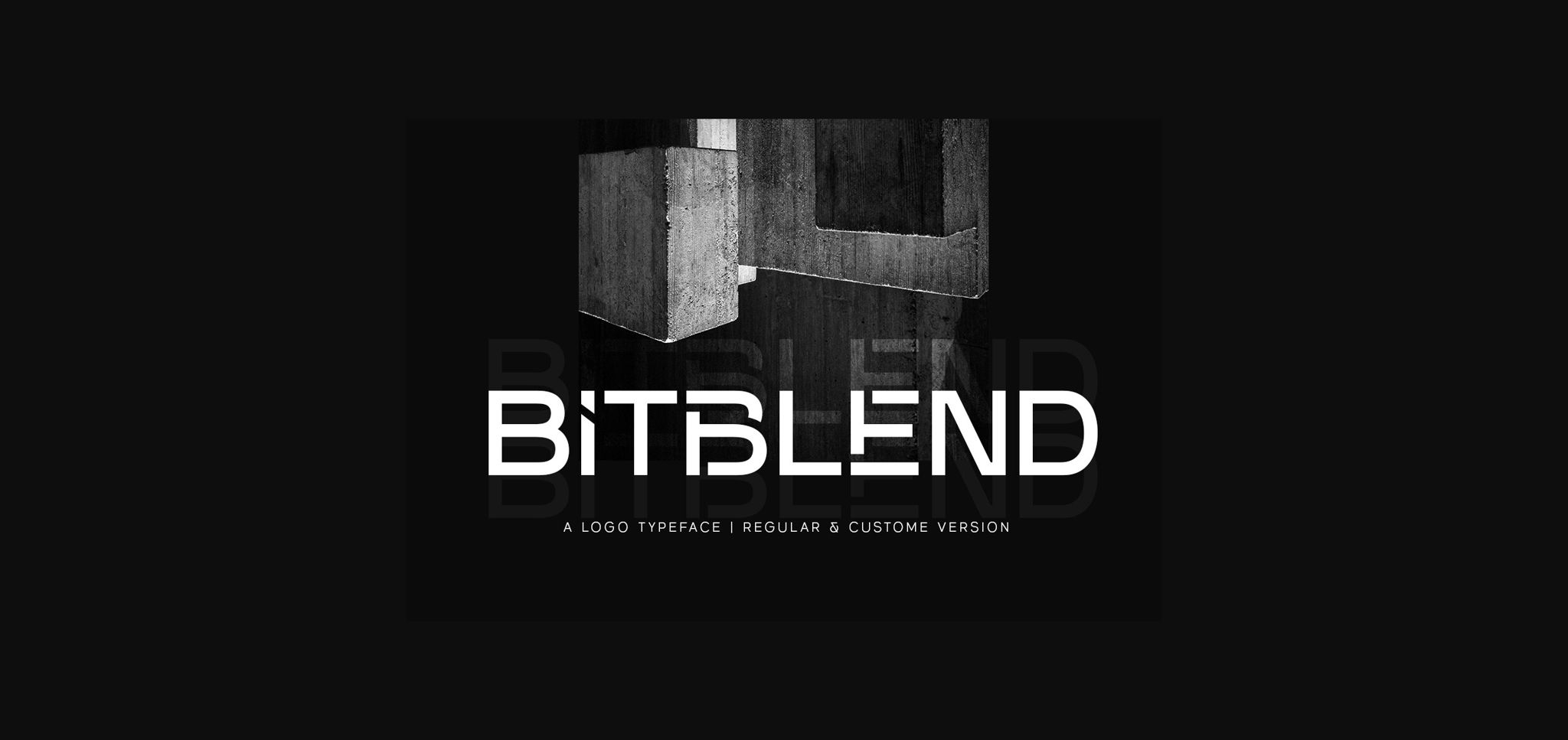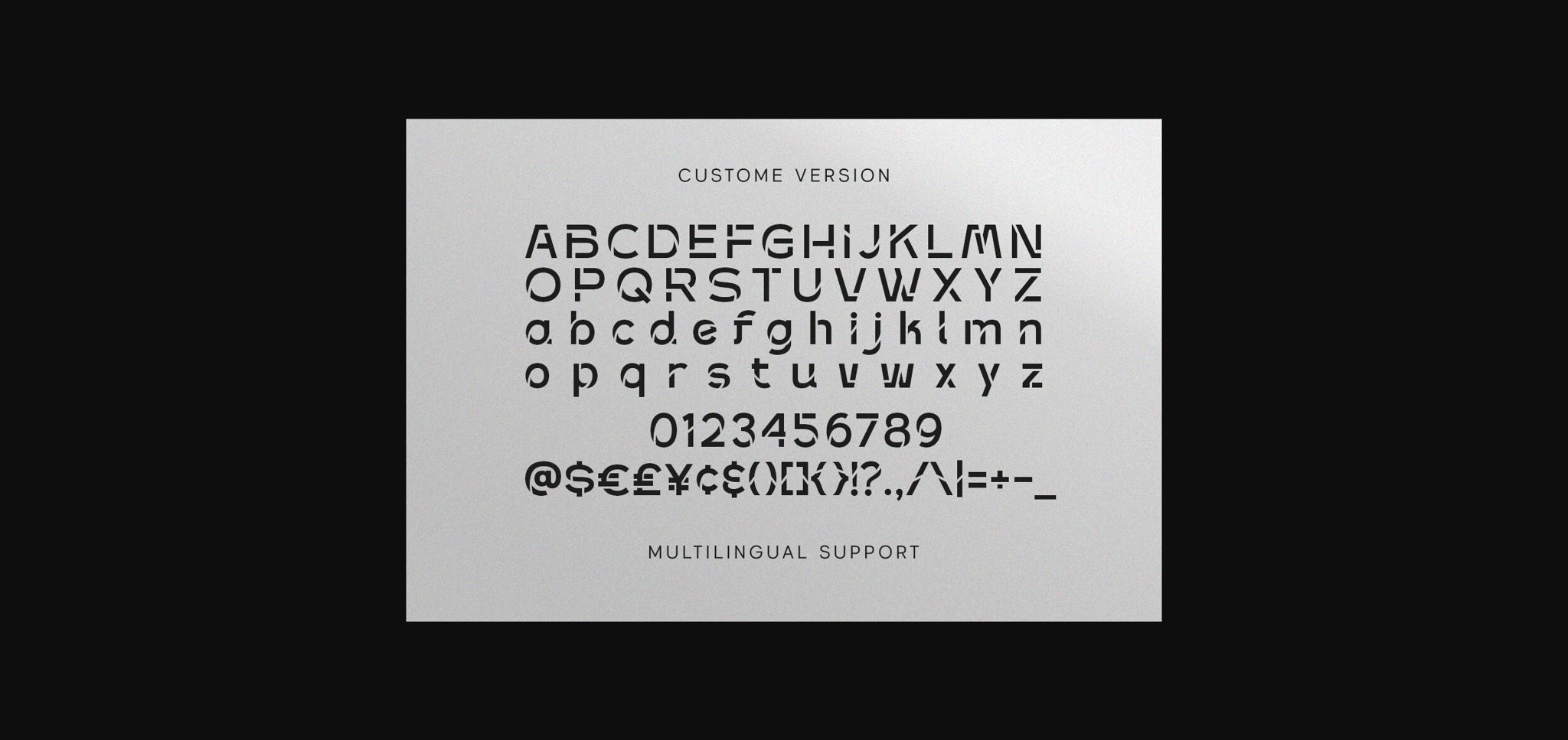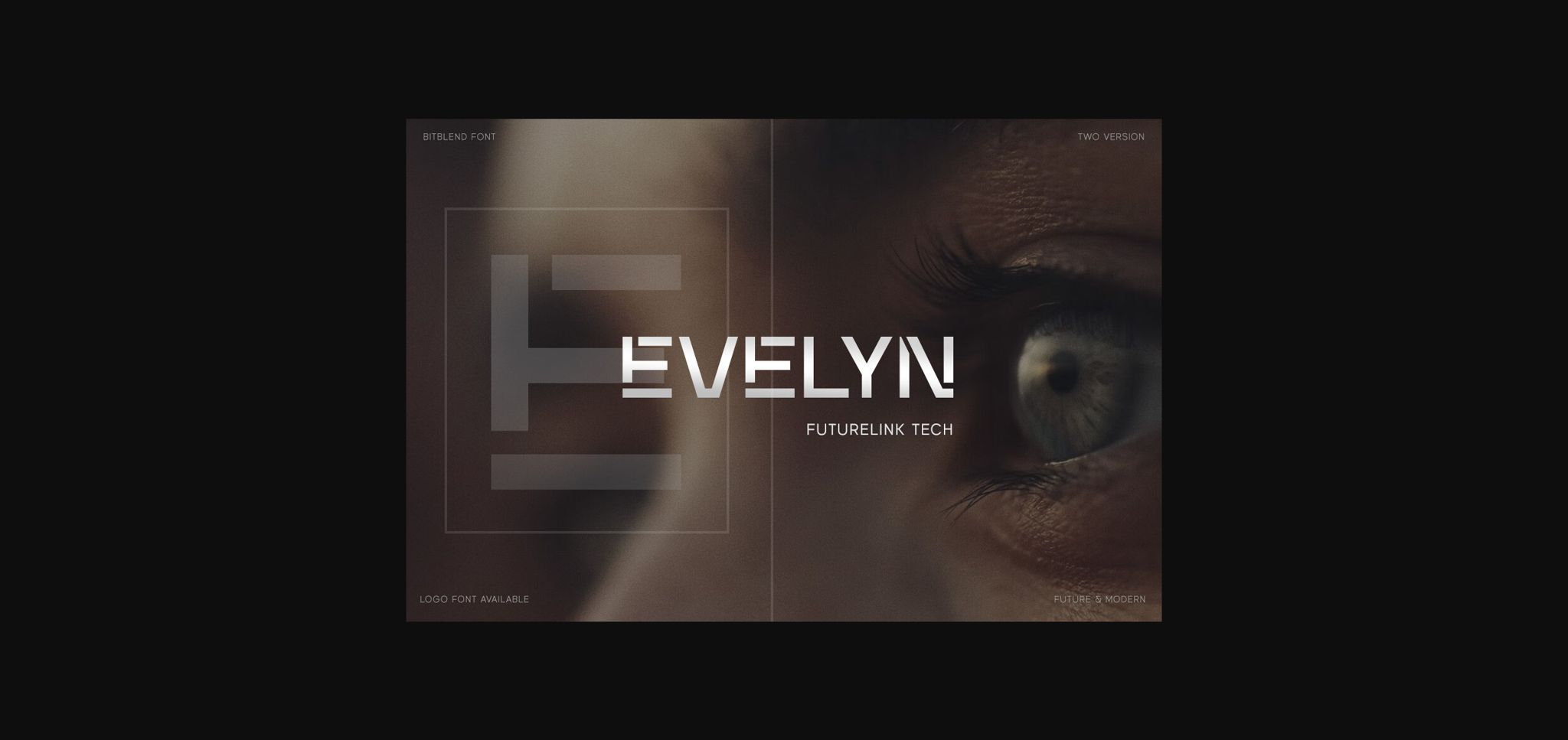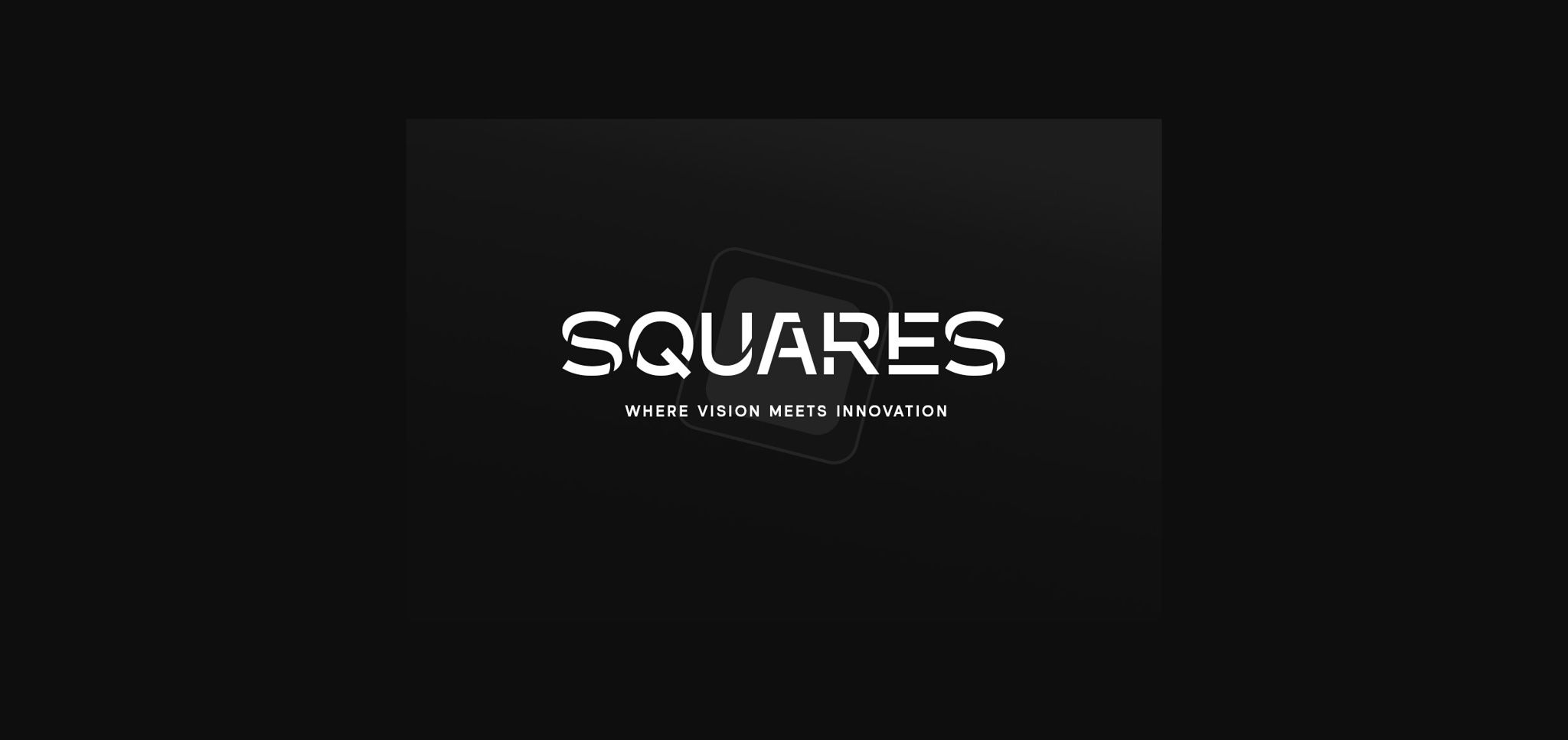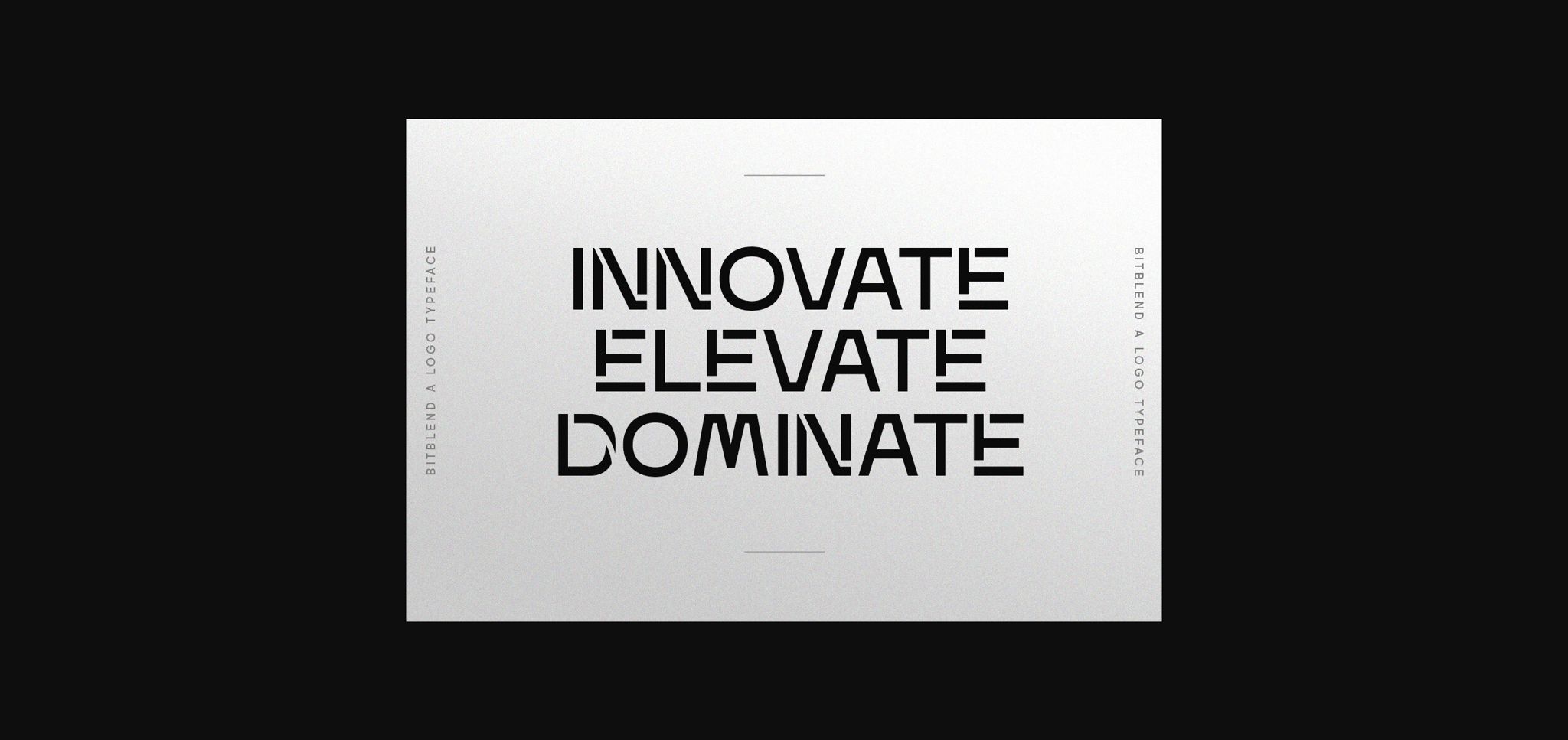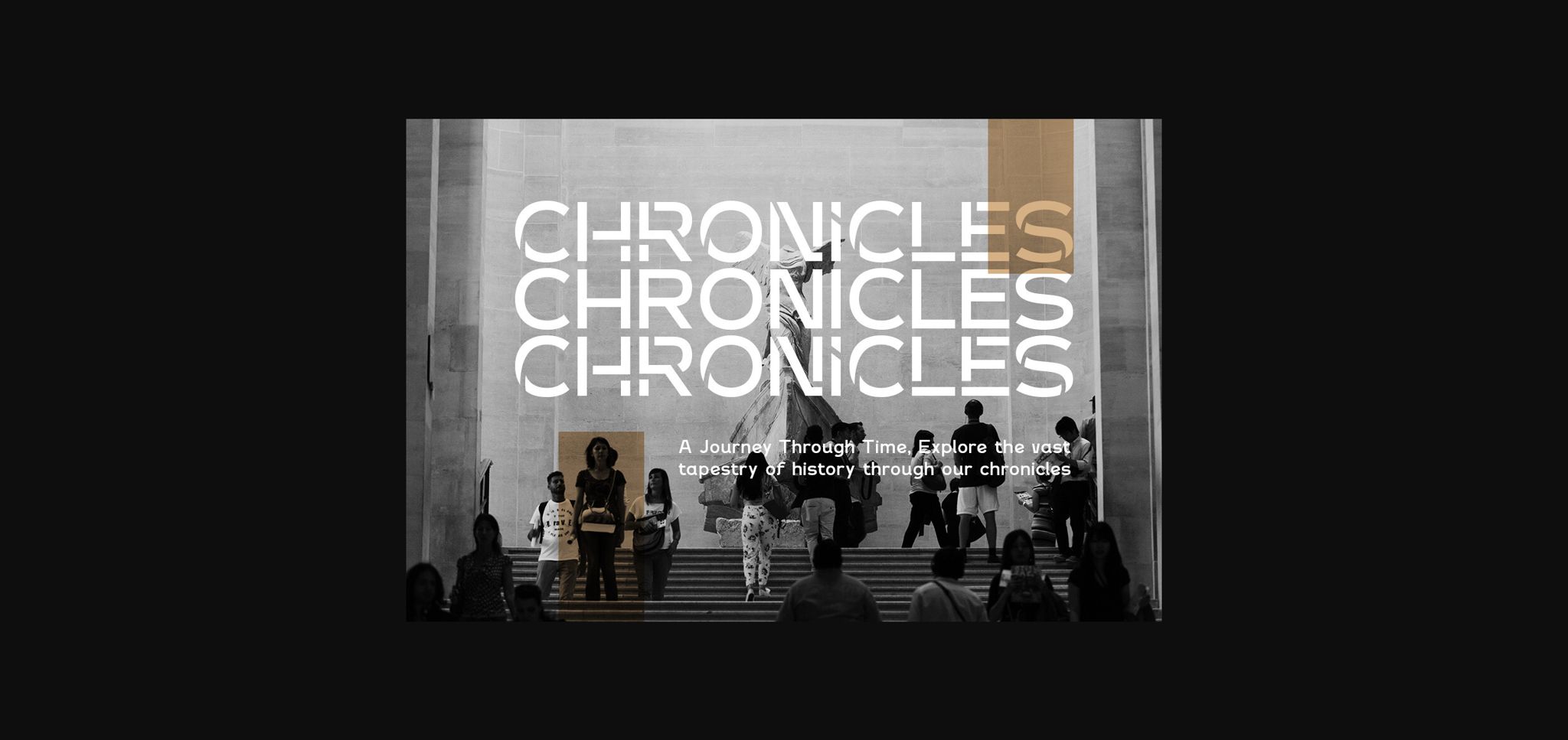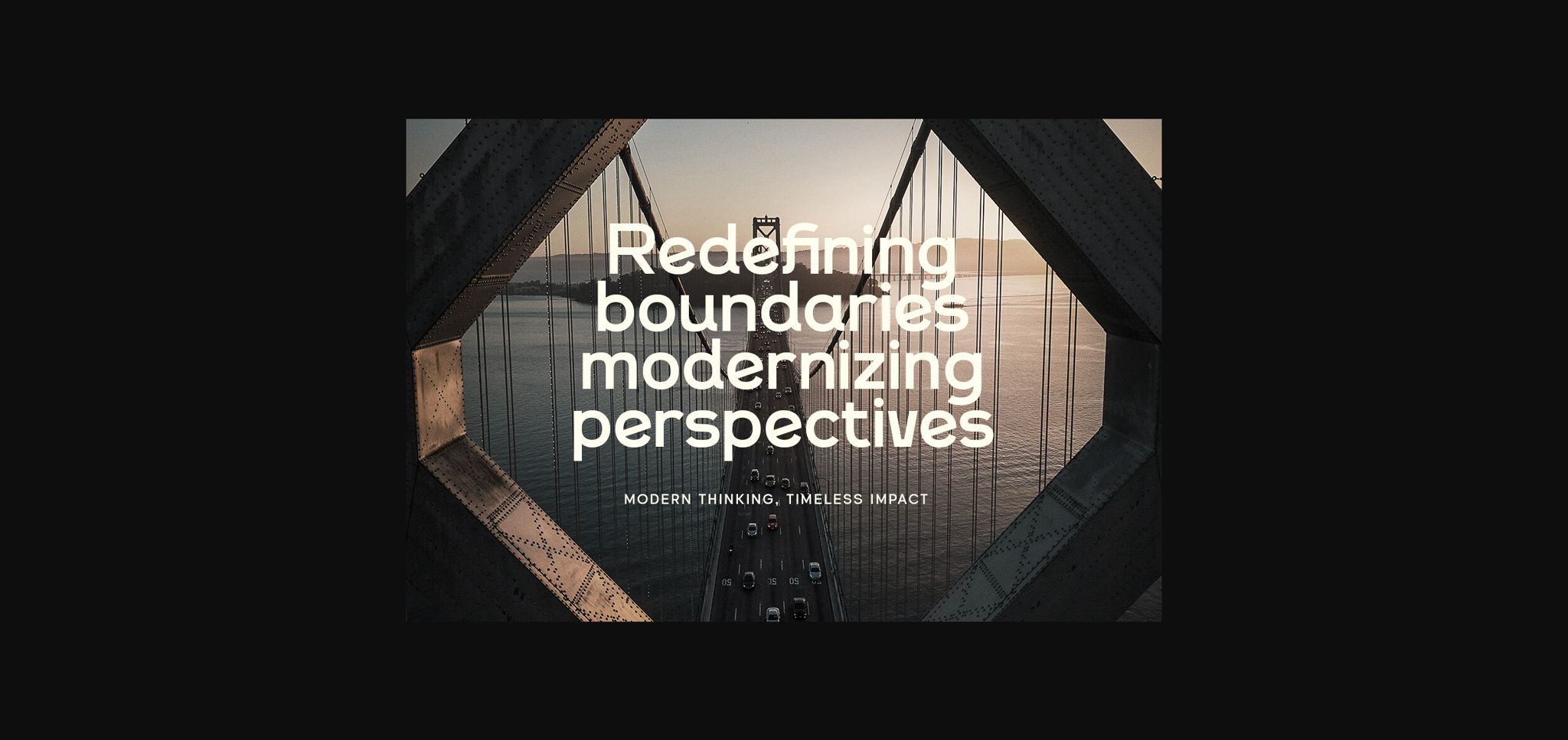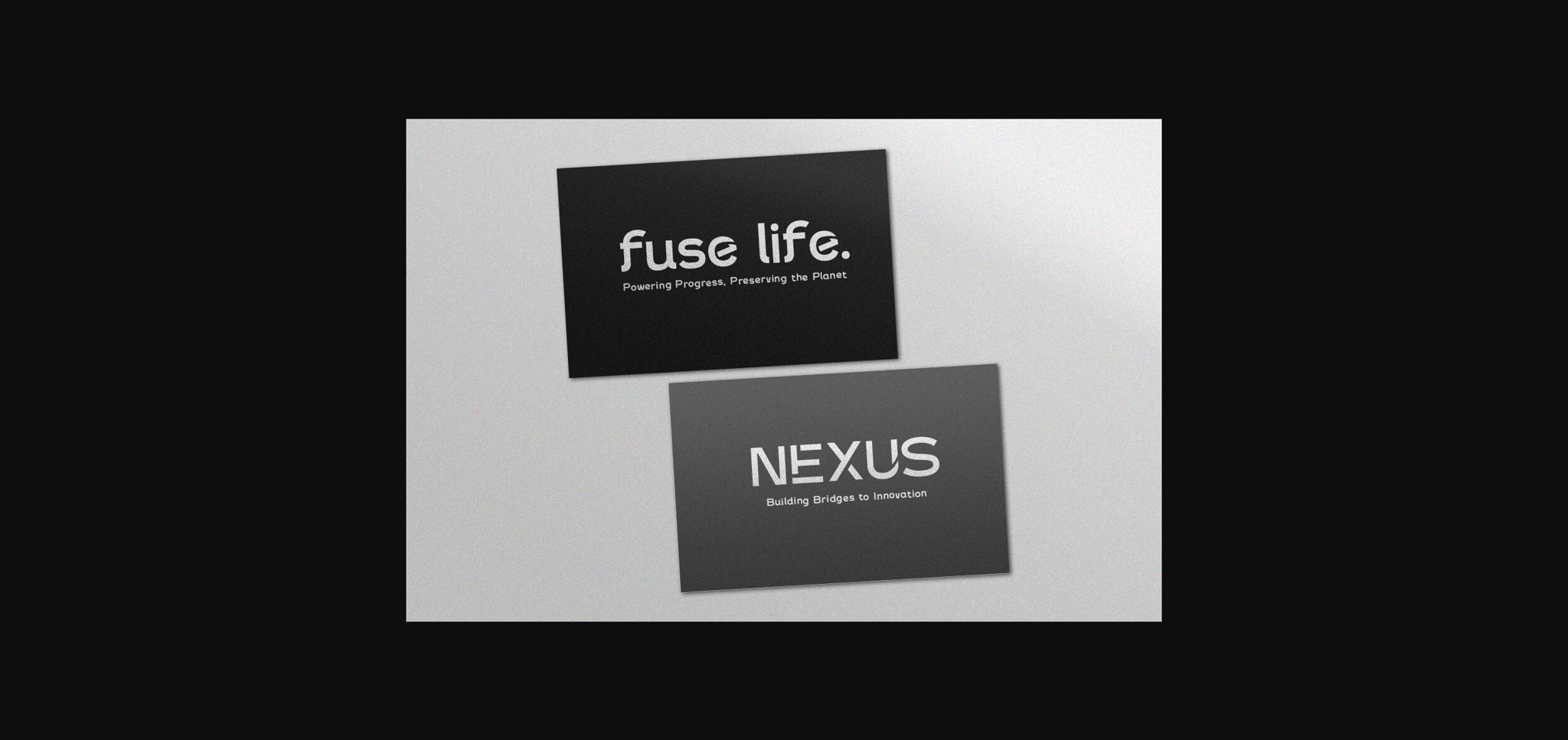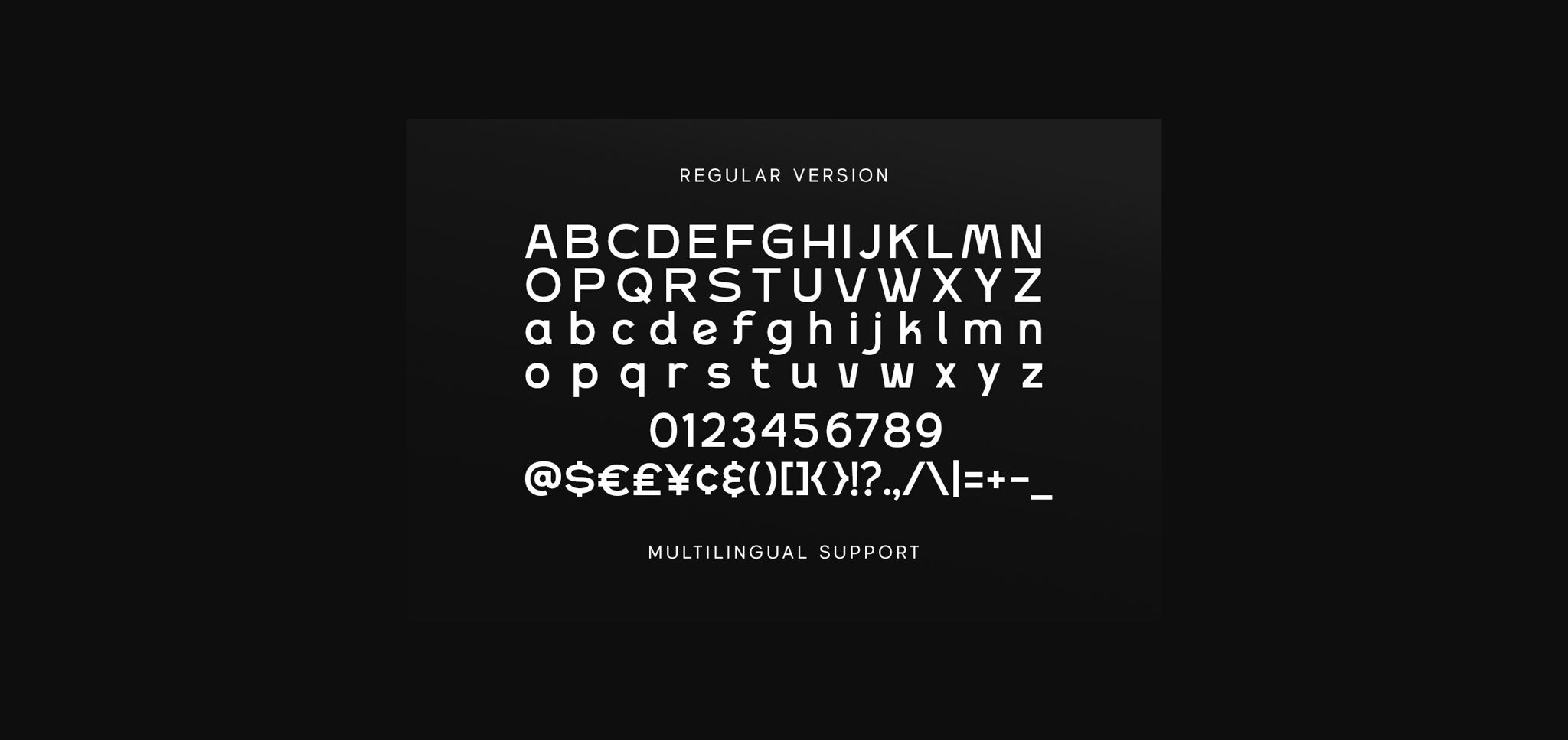
About Bitblend Font
Bitblend is a sleek sans-serif font that epitomizes modern minimalism with a touch of refinement. Its clean lines and well-balanced letterforms create a sophisticated and versatile aesthetic. Ideal for projects demanding clarity and contemporary elegance, Bitblend adds a sleek, polished look to your designs.